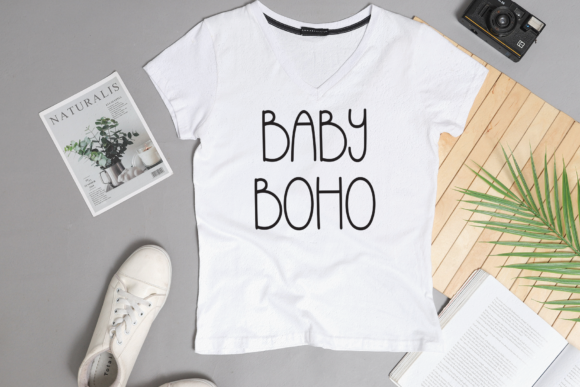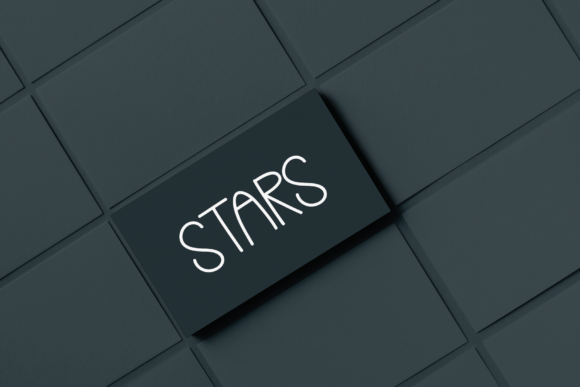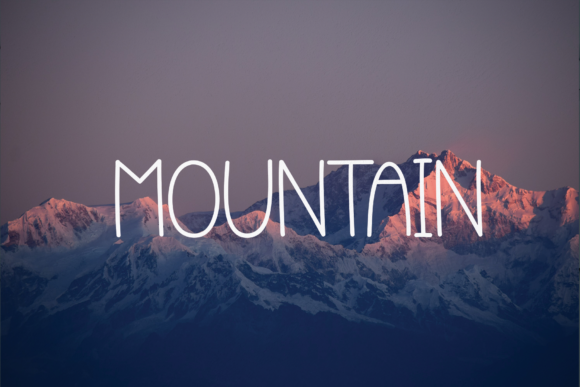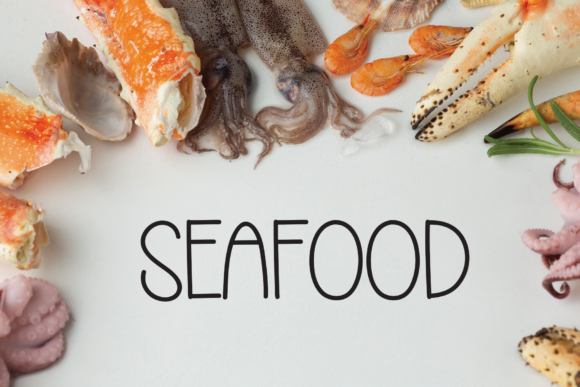
Introducing Flower Beauty Font: The Perfect Addition to Your Design Arsenal
Are you a designer or crafter looking for a font that can add a touch of elegance and sophistication to your work? Look no further than the Flower Beauty Font. This beautiful, handwritten font is perfect for those who want to give their designs a refreshing and clean look. In this article, we’ll take a closer look at the Flower Beauty Font, its features, and how you can use it to take your designs to the next level.
What is Flower Beauty Font?
Flower Beauty Font is a cute, clean, and simple lettered handwritten font that has been carefully crafted to provide a beautiful and refreshing look to your designs. The font is perfect for a wide range of design projects, from wedding invitations and greeting cards to branding and advertising materials. Its elegant and sophisticated style makes it an excellent choice for designers and crafters who want to add a touch of class to their work.
Key Features of Flower Beauty Font
The Flower Beauty Font has several key features that make it an excellent choice for designers and crafters. Some of its notable features include:
- Clean and Simple Design: The font has a clean and simple design that makes it easy to read and use in a variety of design projects.
- Handwritten Style: The font has a beautiful, handwritten style that gives it a personal and elegant touch.
- Elegant and Sophisticated: The font’s elegant and sophisticated style makes it perfect for a wide range of design projects, from wedding invitations to branding and advertising materials.
- Easy to Read: The font is easy to read, even at small sizes, making it perfect for use in a variety of design projects.
How to Use Flower Beauty Font in Your Designs
The Flower Beauty Font is easy to use in a variety of design projects. Here are a few ways you can use it:
- Wedding Invitations: The font is perfect for wedding invitations, giving them a beautiful and elegant touch.
- Greeting Cards: The font is also great for greeting cards, adding a personal and elegant touch to your messages.
- Branding and Advertising: The font’s elegant and sophisticated style makes it perfect for use in branding and advertising materials, such as logos, brochures, and flyers.
- Digital Designs: The font is also great for digital designs, such as social media graphics, blog posts, and website headers.
Benefits of Using Flower Beauty Font
There are several benefits to using the Flower Beauty Font in your designs. Some of the benefits include:
- Unique and Creative: The font’s unique and creative design makes it stand out from other fonts, giving your designs a fresh and original look.
- Elegant and Sophisticated: The font’s elegant and sophisticated style makes it perfect for a wide range of design projects, from wedding invitations to branding and advertising materials.
- Easy to Read: The font is easy to read, even at small sizes, making it perfect for use in a variety of design projects.
- Versatile: The font is versatile and can be used in a wide range of design projects, from digital designs to print materials.
In conclusion, the Flower Beauty Font is a beautiful, handwritten font that is perfect for designers and crafters who want to add a touch of elegance and sophistication to their work. Its clean and simple design, elegant and sophisticated style, and ease of use make it an excellent choice for a wide range of design projects. Whether you’re creating wedding invitations, greeting cards, or branding and advertising materials, the Flower Beauty Font is sure to take your designs to the next level.